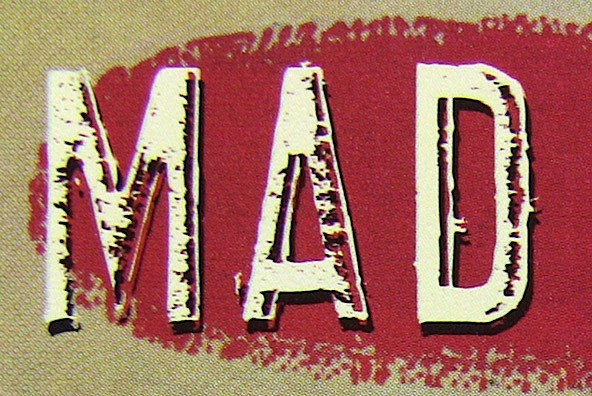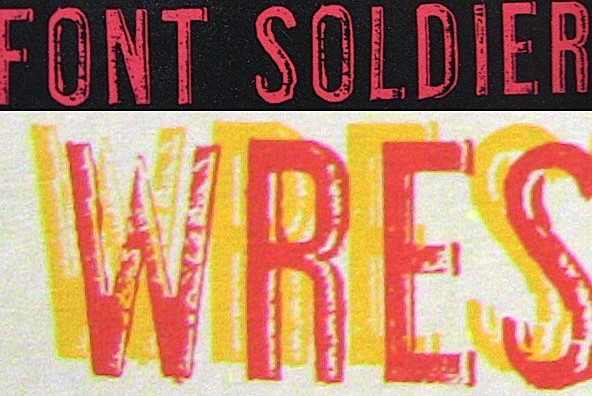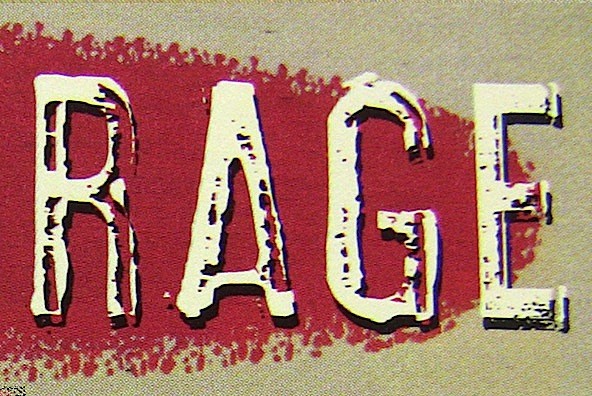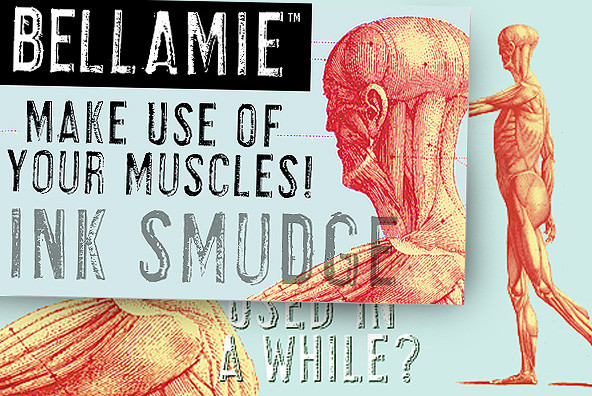
Bellamie
This font family simulates the smudged effect of type when it is quickly printed onto cardboard and plastics. The designs are actually derived from scans of smudged letters from a cardboard box.
ALTERNATE CHARACTERS
When setting type which is intended to mimic the smudged effect of type when it is quickly printed onto cardboard and plastics, the effect can be much more realistic if duplicate letters are smudged or inked a little differently. To help you achieve this illusion, each of the two fonts in this family contain two versions of the uppercase alphabet (the second set is found in the lowercase character slots). This gives you the flexibility to easily mix and match characters for a more dynamic final appearance.
SUGGESTIONS FOR USE
As these fonts also do a great job of simulating traditional ink stamps, they are the perfect fonts to use when trying to create a hand-stamped effect in your layouts (e.g. you could use Bellamie™ to print the word "PAID" on your invoices).
FULL CHARACTER SET
Each font in the Bellamie™ family has a full character set of 232+ letterforms, with all characters designed in the style of the font.